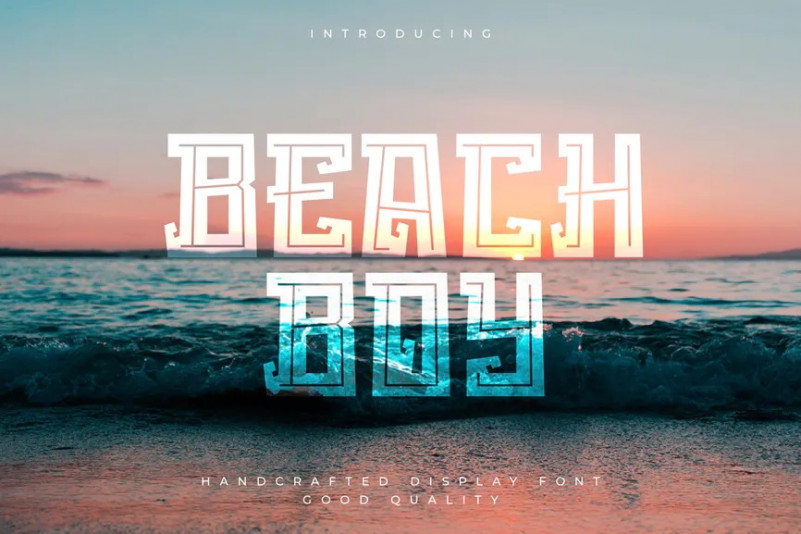
Beach Boy Font
Are you looking for a good summer vibes and beach font? We can help! Try to download our beach boy font. The font is suitable to use for all all purpose. Try to use it on flyer, greeting card, poster, quotes, postcard, photography, branding, editorial, and signature to see the best of it 🙂